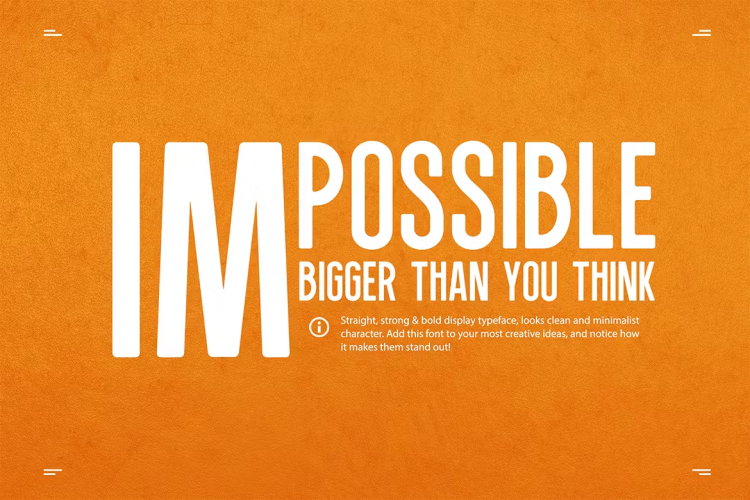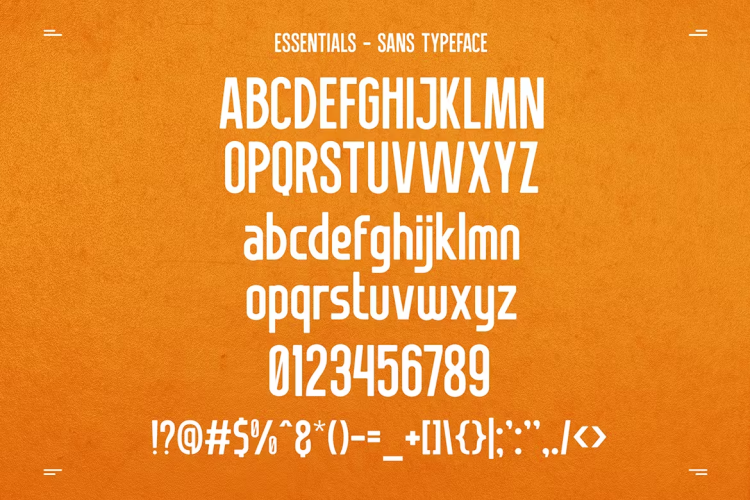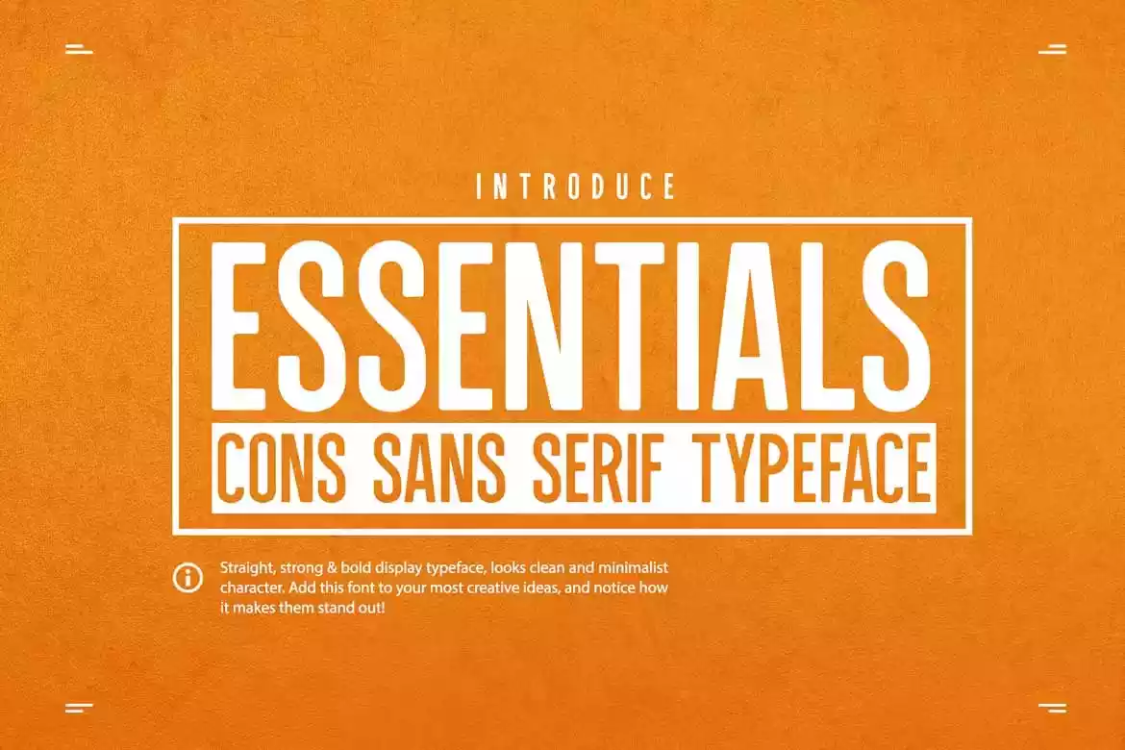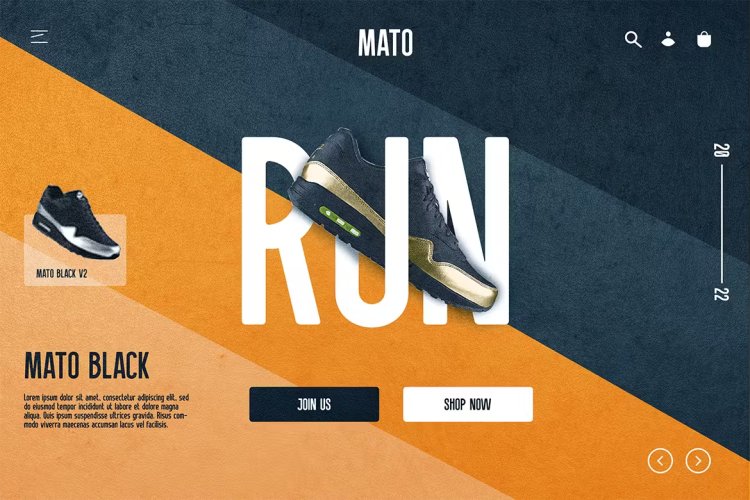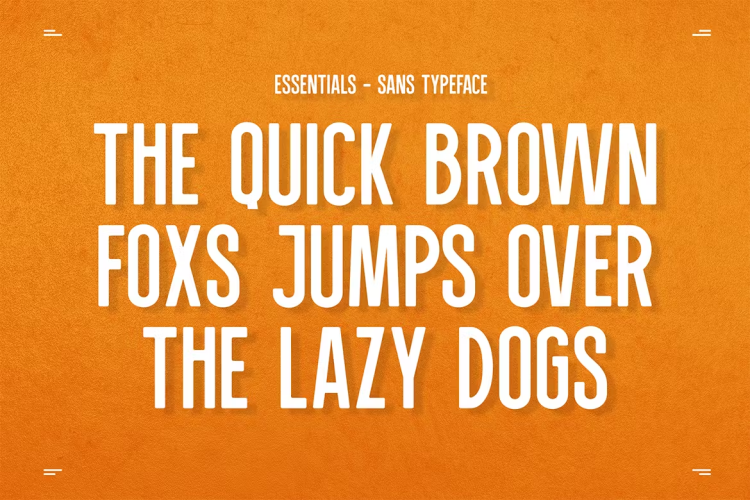
Essentials Font
Essentials is a condensed sans serif font featuring modern, formal, bold characters that seem to dance along the baseline. Add this font to your most creative ideas, and…
Essentials is a condensed sans serif font featuring modern, formal, bold characters that seem to dance along the baseline. Add this font to your most creative ideas, and notice how it makes them stand out!
Essentials Font stays legible at small sizes, which makes it a strong choice for navigation, buttons and dashboards in web design and app interfaces.
Clean sans serifs like Essentials Font are the default language of SaaS, fintech and product branding.
Essentials Font is a Sans Serif Fonts typeface tagged Bold, Condensed, Creative, Formal. It works well for headlines, logos, posters, social media graphics and branding projects that need a distinctive sans serif fonts look.